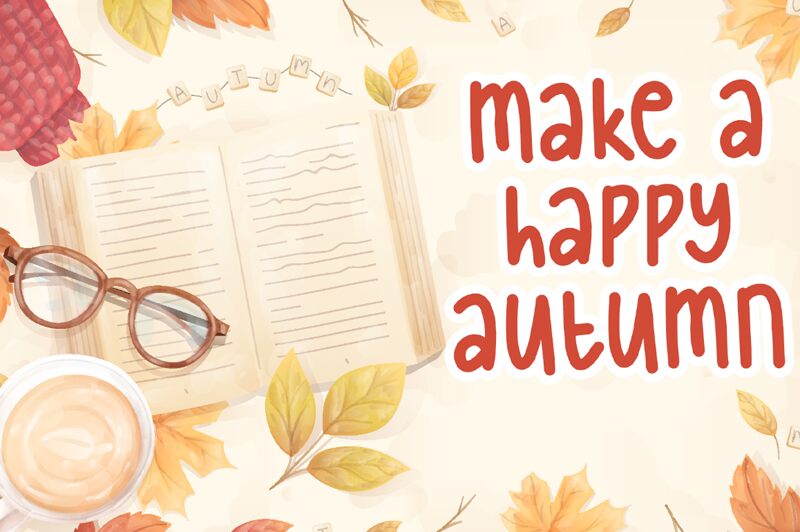
Autumn Leaves is a narrow, handwritten font created by Muhammad Hisyam Rivai. It's perfect for adding a personal touch to projects like stationery designs, greeting cards, invitations, and blog headers.
Autumn Leaves
Muhammad Hisyam Rivai
This font was created By Phantom Creative Studio (Hisyam) From Bandung - Indonesia .